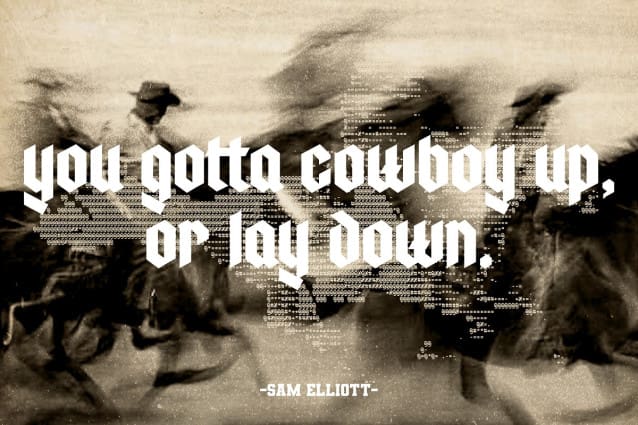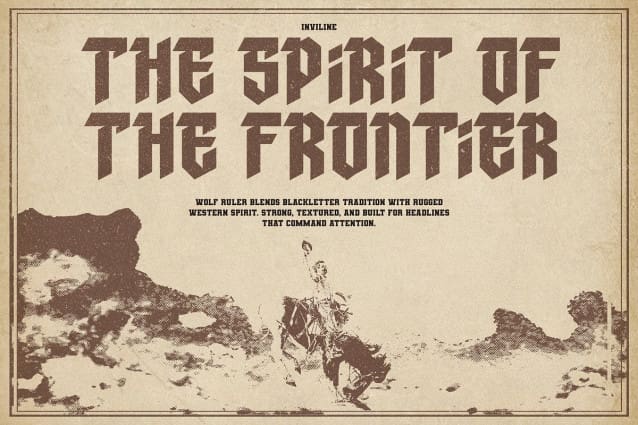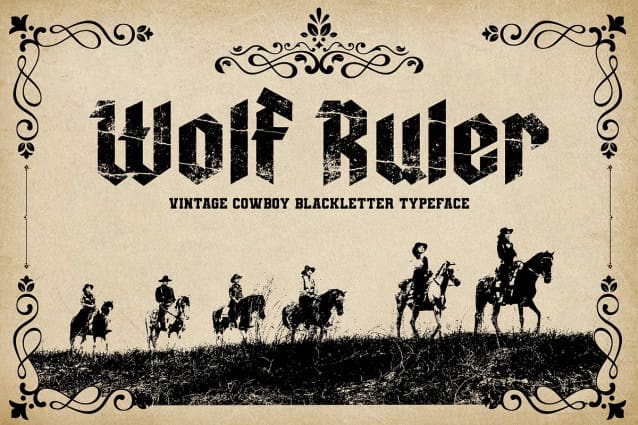
Wolf Ruler Font is a bold and gritty western blackletter typeface inspired by cowboy legends, dusty frontiers, and outlaw rebellion. With rough edges and heavy strokes, this font captures the spirit of vintage Americana and wild west storytelling. Whether you’re designing for a saloon-themed bar, an outlaw movie poster, or rugged apparel, Wolf Ruler is here to take the reins.
It combines a classic blackletter structure with a distressed texture, perfect for adding authenticity and drama to your headlines. The font also includes alternate characters and ligatures that mimic the handcrafted style of old wanted posters and cowboy graffiti.